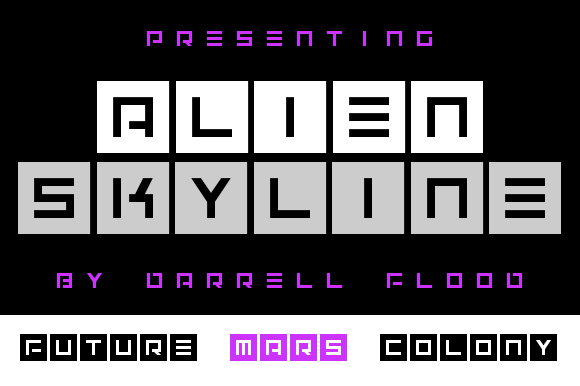
Introducing Alien Skyline Font: Elevate Your Designs with a Futuristic Twist
In the realm of typography, fonts play a pivotal role in conveying messages, evoking emotions, and adding aesthetic value to designs. For creatives, designers, and crafters, the quest for the perfect font is endless. If you’re on the lookout for a typeface that screams futurism, precision, and innovation, then Alien Skyline Font is your go-to. This unique display font is engineered to transform your creative projects with its distinct futuristic feel, emphasizing precision and the delicate balance of positive and negative space.
The Essence of Alien Skyline Font
Alien Skyline Font stands out in the crowded world of typography due to its meticulous design and futuristic appeal. The creator of this font aimed to craft a typeface that not only turns heads but also elevates the overall design to new heights. Whether you’re working on a branding project, a website design, or crafting unique digital content, Alien Skyline Font can add that extra layer of sophistication and edge.
Key Features of Alien Skyline Font
- Futuristic Feel: The font boasts a sleek and modern design that instantly gives any project a futuristic vibe. Its unique character shapes and lines are reminiscent of advanced technology and space-age designs.
- Precision Engineering: One of the standout features of Alien Skyline Font is its precision. Each letter and character is carefully crafted to ensure clarity and legibility, even at larger sizes.
- Positive/Negative Space Balance: The design of Alien Skyline Font places a significant emphasis on the balance between positive (the space occupied by the letters) and negative (the space around and between the letters) space. This balance creates a visually appealing and harmonious look that can enhance any design.
- Versatility: While it’s categorized as a display font, Alien Skyline Font can be used across various platforms and projects. From digital interfaces to print materials, its adaptability makes it a valuable addition to any designer’s toolkit.
How to Use Alien Skyline Font in Your Projects
Incorporating Alien Skyline Font into your designs is straightforward. Here are a few ideas to get you started:
- Branding and Logos: Use Alien Skyline Font to create a memorable logo or brand identity that stands out. Its unique design can help your brand appear more modern and innovative.
- Web Design: Add a futuristic touch to your website’s header, title, or even the entire content with Alien Skyline Font. It’s especially effective for tech startups, digital magazines, or any site aiming for a modern look.
- Digital Marketing Materials: Enhance your digital marketing campaigns with eye-catching social media posts, banners, or email newsletters. The font’s readability and style make it perfect for conveying messages effectively.
- Crafting and DIY Projects: Even if you’re into crafting or DIY digital art, Alien Skyline Font can add a professional and stylish touch to your projects, such as custom T-shirts, posters, or digital art.
Tips for Maximizing Alien Skyline Font’s Potential
To get the most out of Alien Skyline Font, consider the following tips:
- Experiment with Sizes: While it’s designed as a display font, experimenting with different sizes can help you find the perfect balance for your design.
- Play with Colors: The font’s sleek design pairs well with a variety of colors. Try contrasting colors to make your text pop or use harmonious colors for a more subtle look.
- Mix and Match: Don’t be afraid to use Alien Skyline Font alongside other typefaces. Its unique style can complement a wide range of fonts, adding depth and interest to your designs.
Alien Skyline Font is more than just a typeface; it’s a design statement. Its futuristic feel, precision engineering, and emphasis on space balance make it an invaluable asset for designers and crafters looking to elevate their projects. Whether you’re aiming to create a bold brand identity, a sleek website, or unique digital content, Alien Skyline Font can help you achieve your creative vision. So, add it to your toolkit today and watch your designs come alive with a touch of the future!